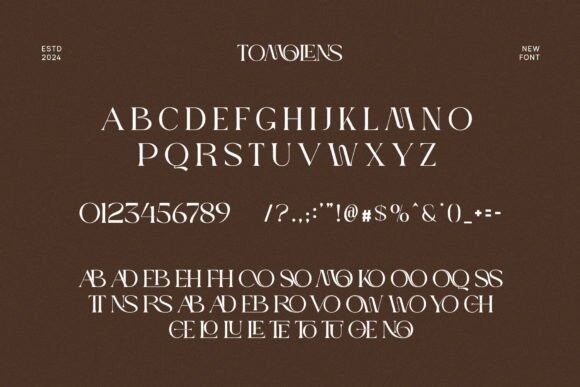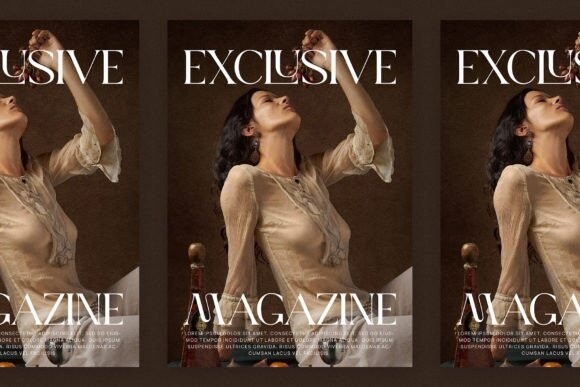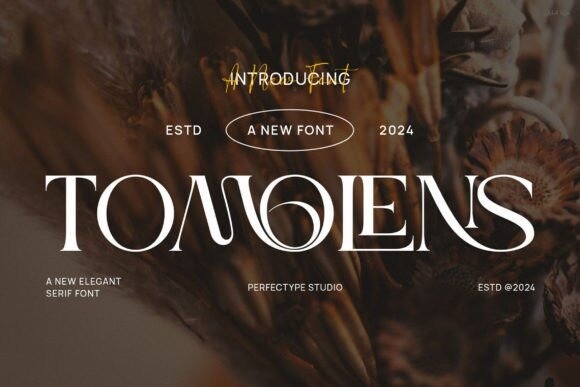
Tomolens Font
Tomolens Font – Elegant serif typeface combined with a classy and modern style. This type of font is very suitable for your various needs such as branding projects, logos, wedding designs, social media posts, advertisements, product packaging, product designs, labels, photography, watermarks, invitations, stationery, and any project, created with high level of readability.
This font is PUA encoded which means you can access all of the amazing glyphs and ligatures with ease!